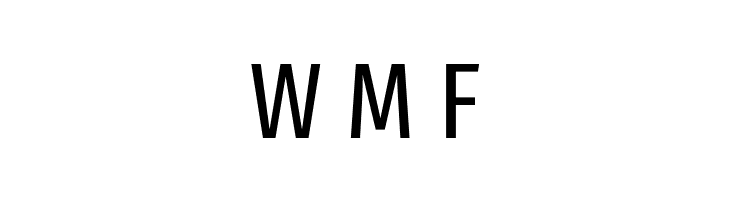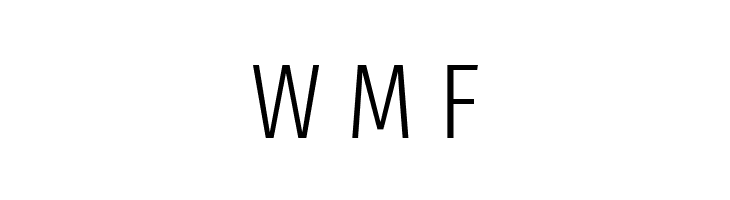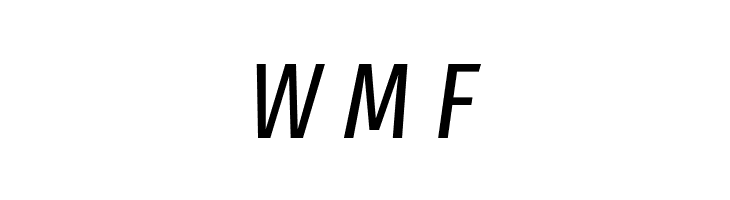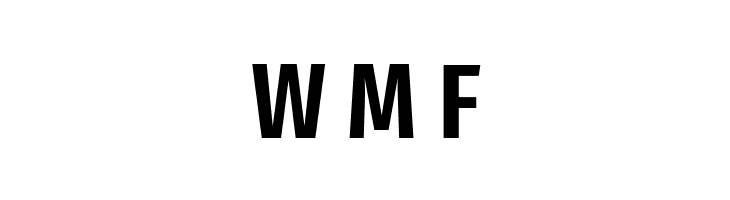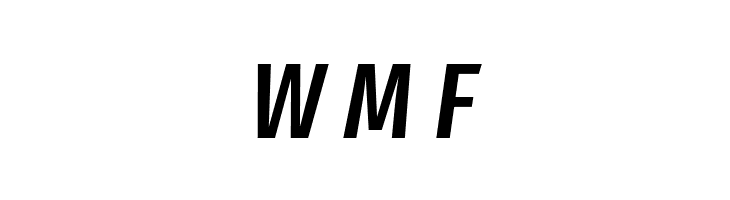
A sleek, modern, extra-condensed italic typeface with tight spacing.
A modern, extra-condensed sans-serif font with a light weight and minimal contrast.
A sleek, extra-condensed, light, and italic sans-serif font with a modern appeal.
A modern, extra-condensed sans-serif typeface with medium weight and tight spacing.
A modern, extra-condensed sans-serif font with medium weight and italic style.
A modern, extra-condensed sans-serif font with a clean and balanced design.
A modern, extra-condensed sans-serif font with a semi-bold weight and minimal contrast.
A sleek, extra condensed, semi-bold italic typeface with a modern aesthetic.
A modern, extra-condensed, thin sans-serif font with a clean and minimalist design.
A sleek, extra-condensed thin italic font with a modern and elegant style.